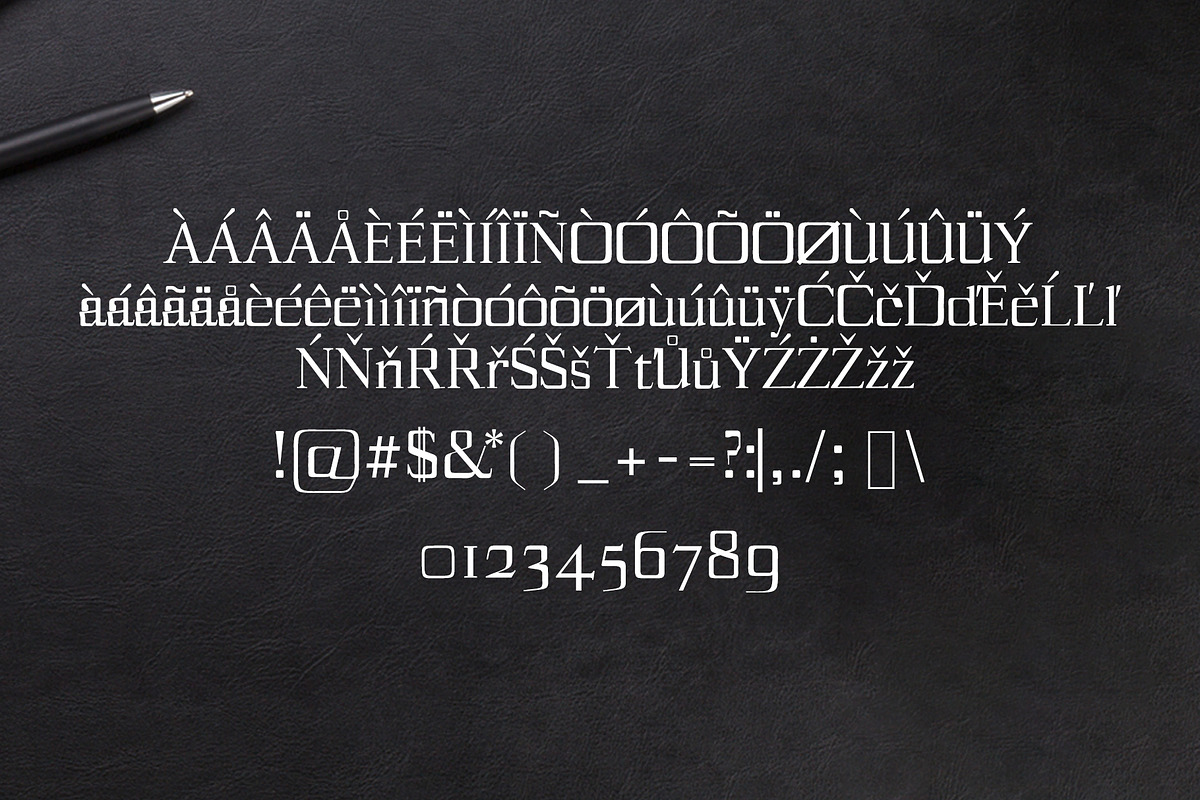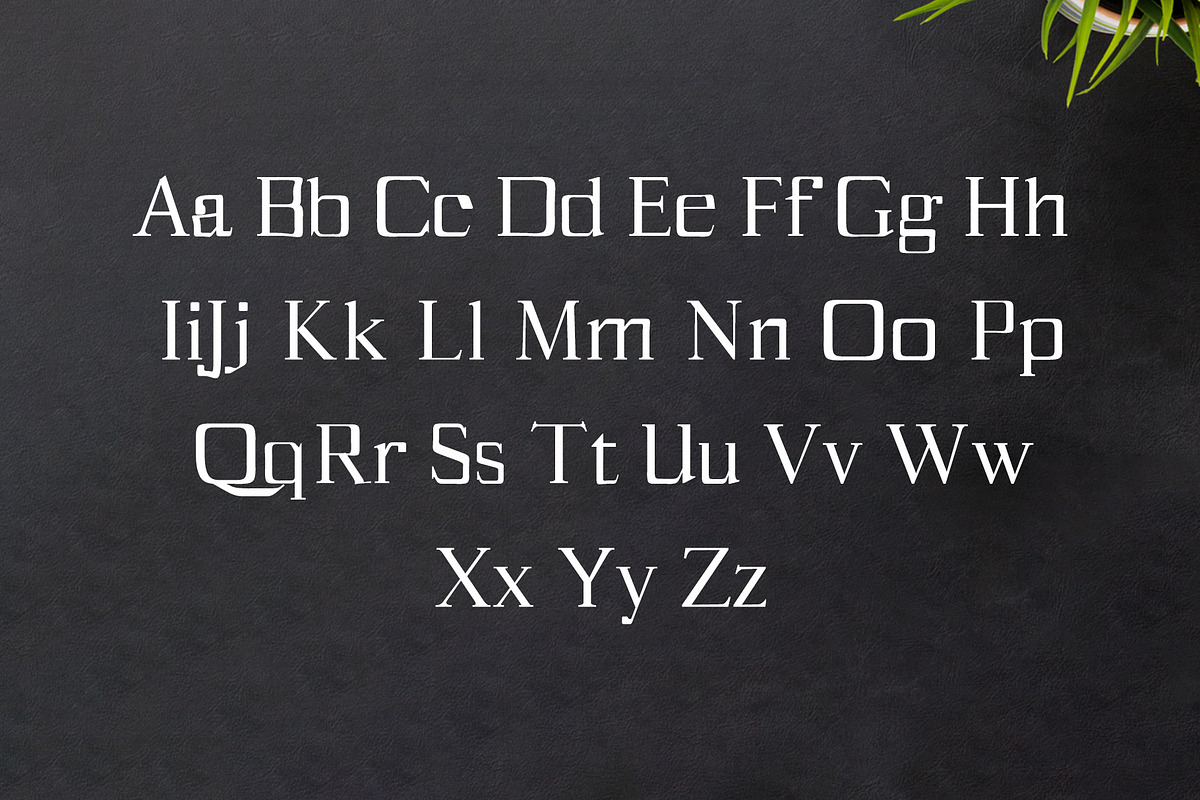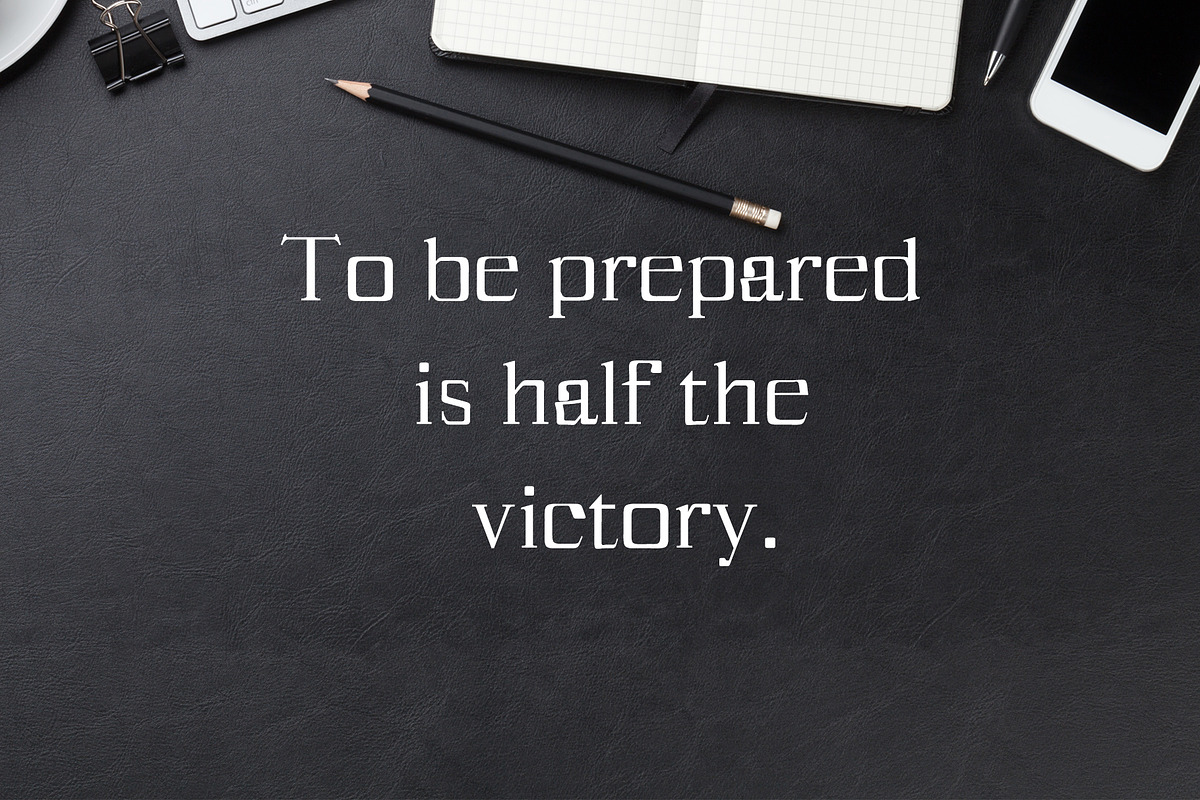
Spark Serif 3 Font Family Pack
Spark Serif 3 Font Family Pack by Creativetacos is a font selected for branding, posters, packaging, typography.
Why Spark Serif 3 Font Family Pack is worth a look
Spark Serif 3 Font Family Pack by Creativetacos fits naturally into Branding, posters, packaging, typography.